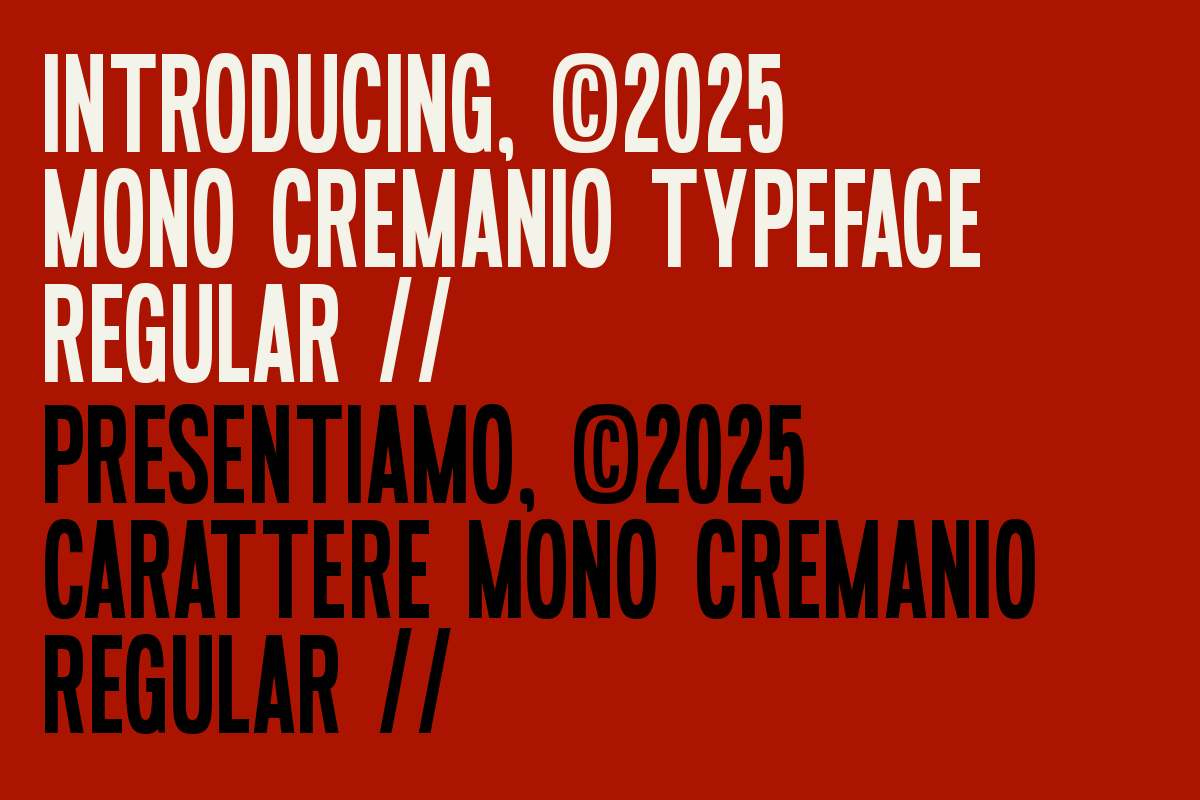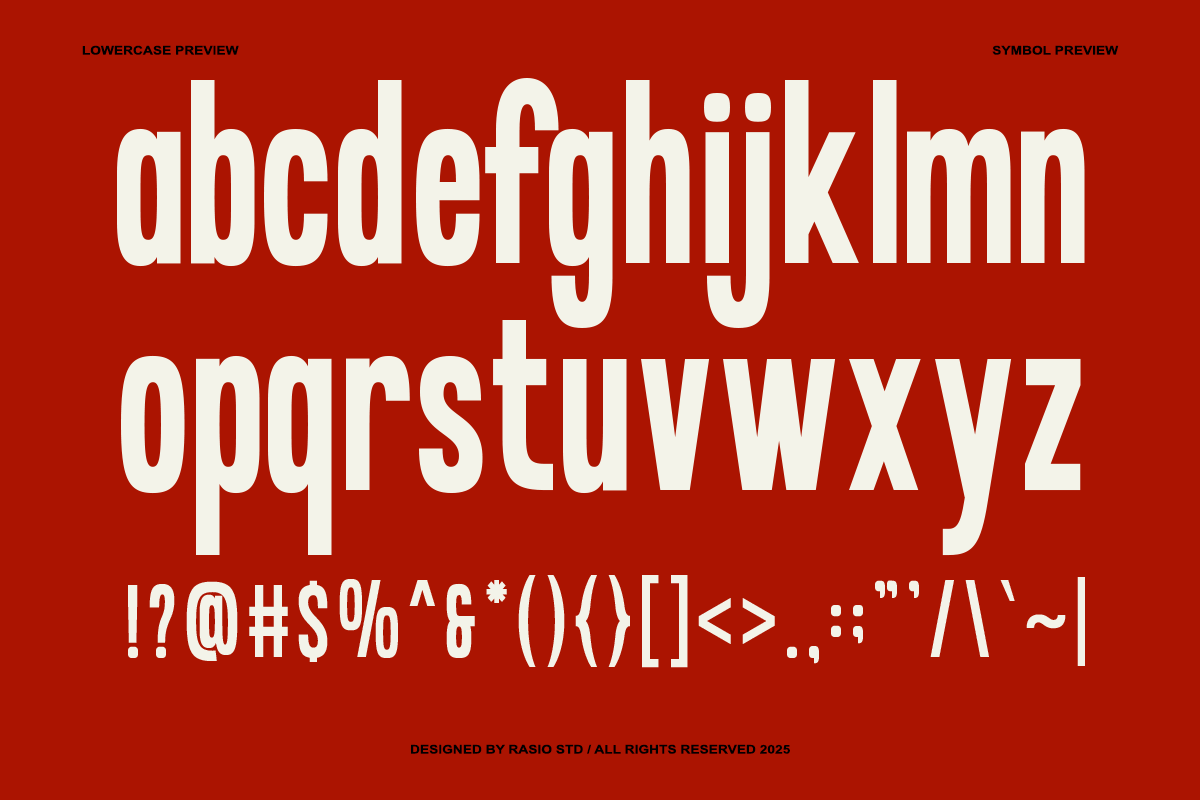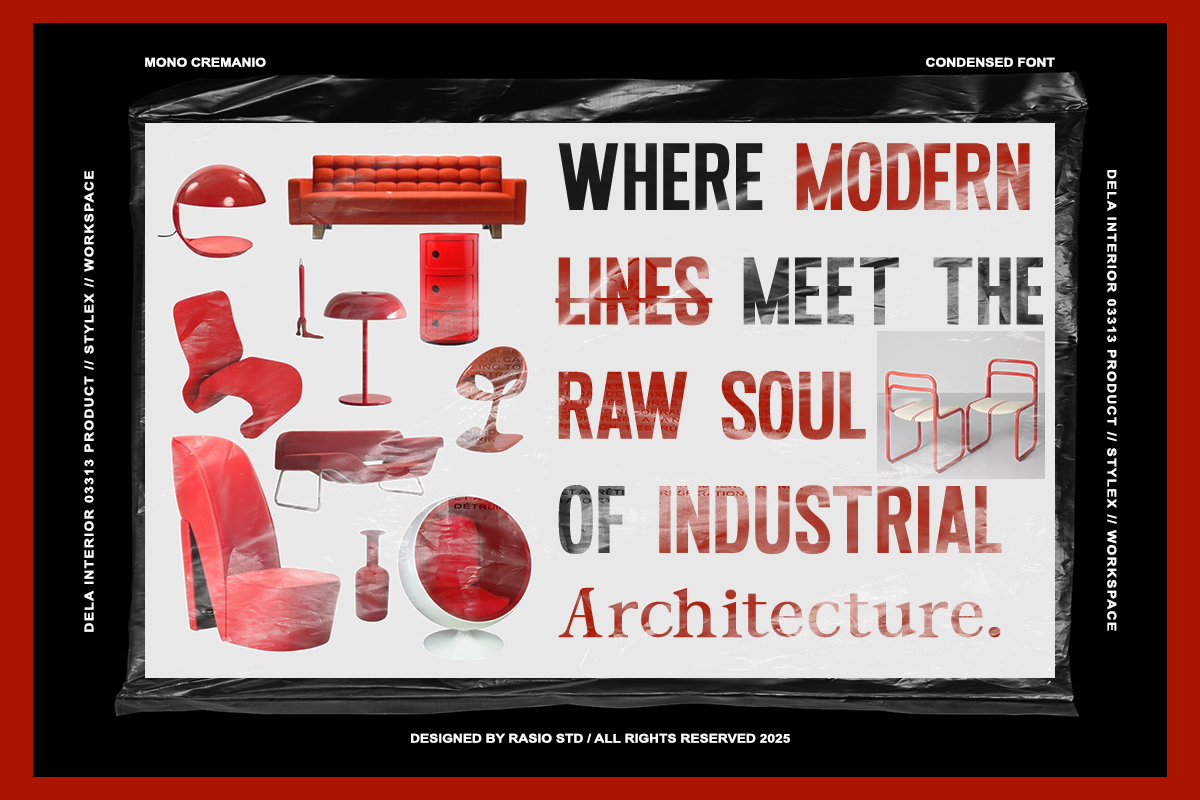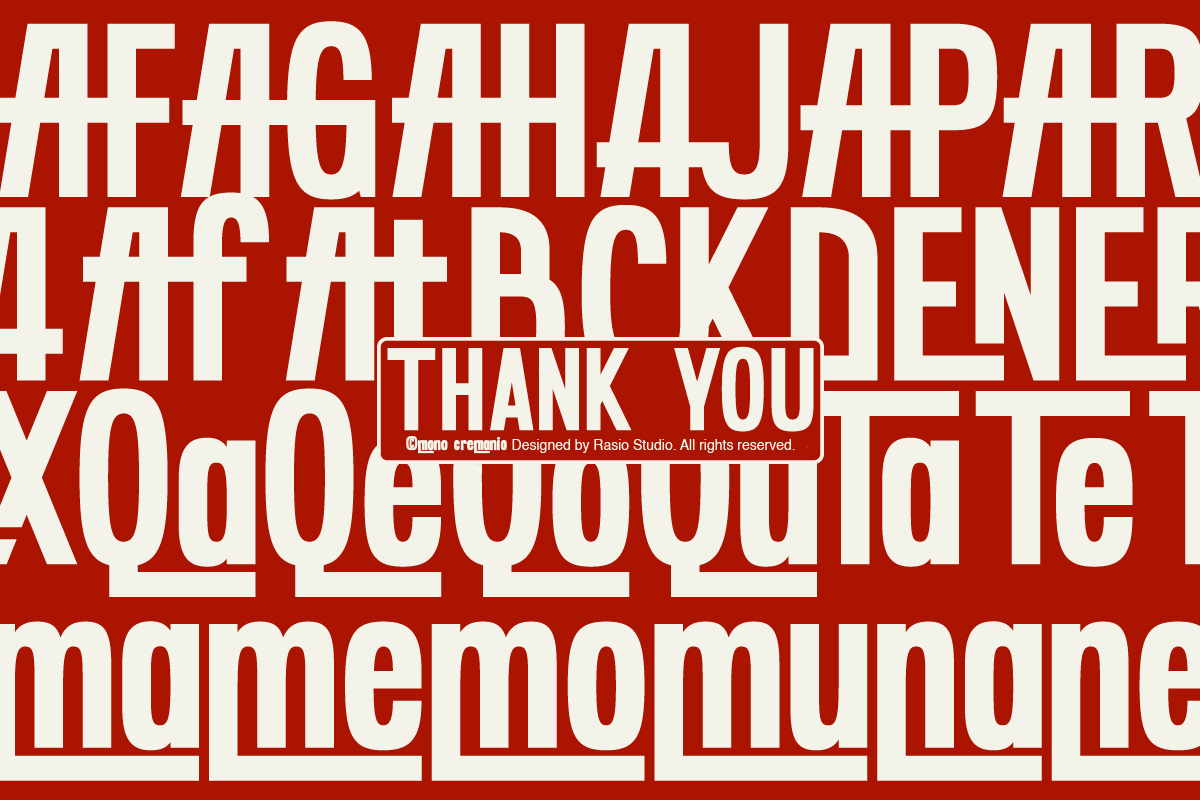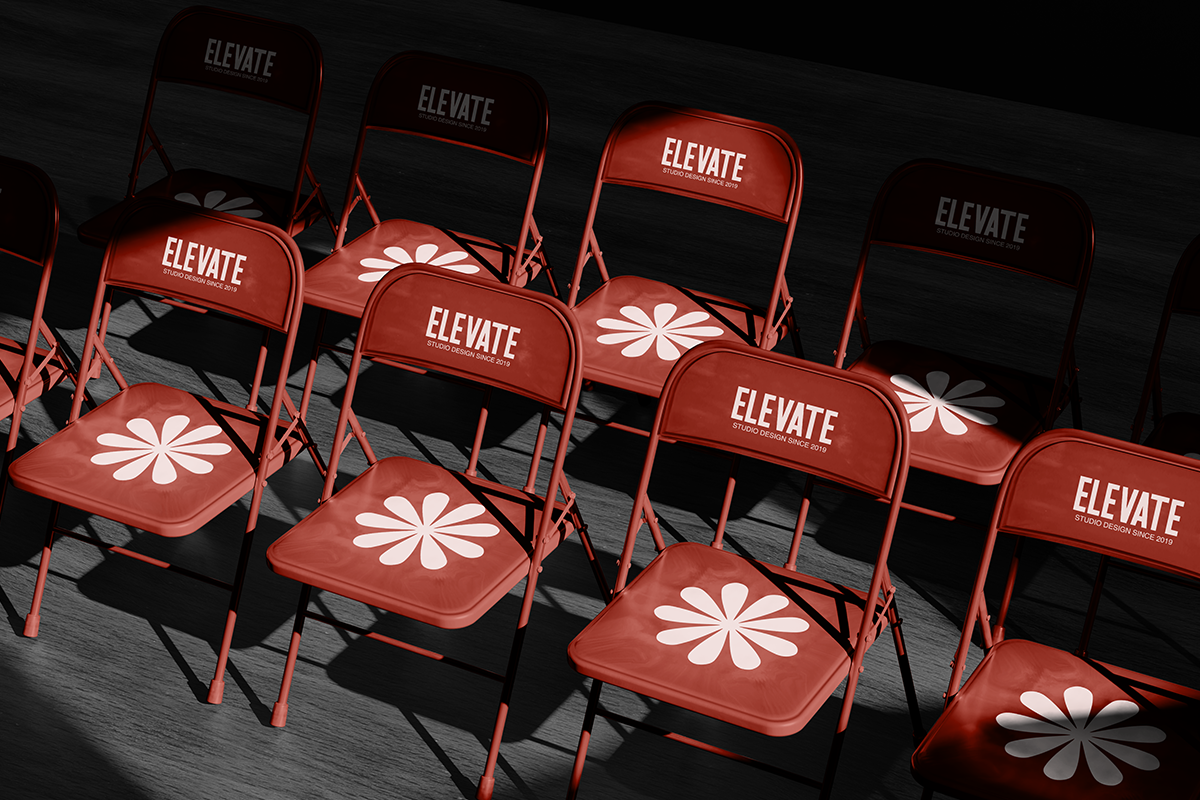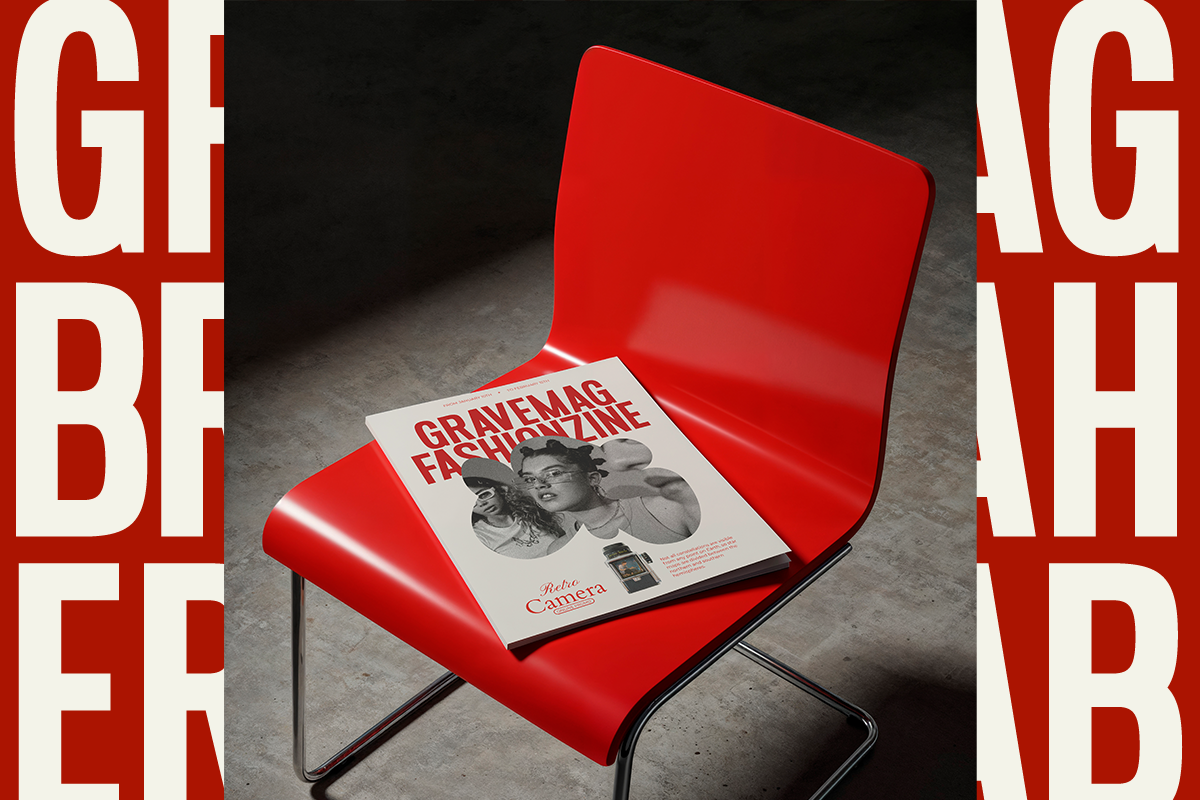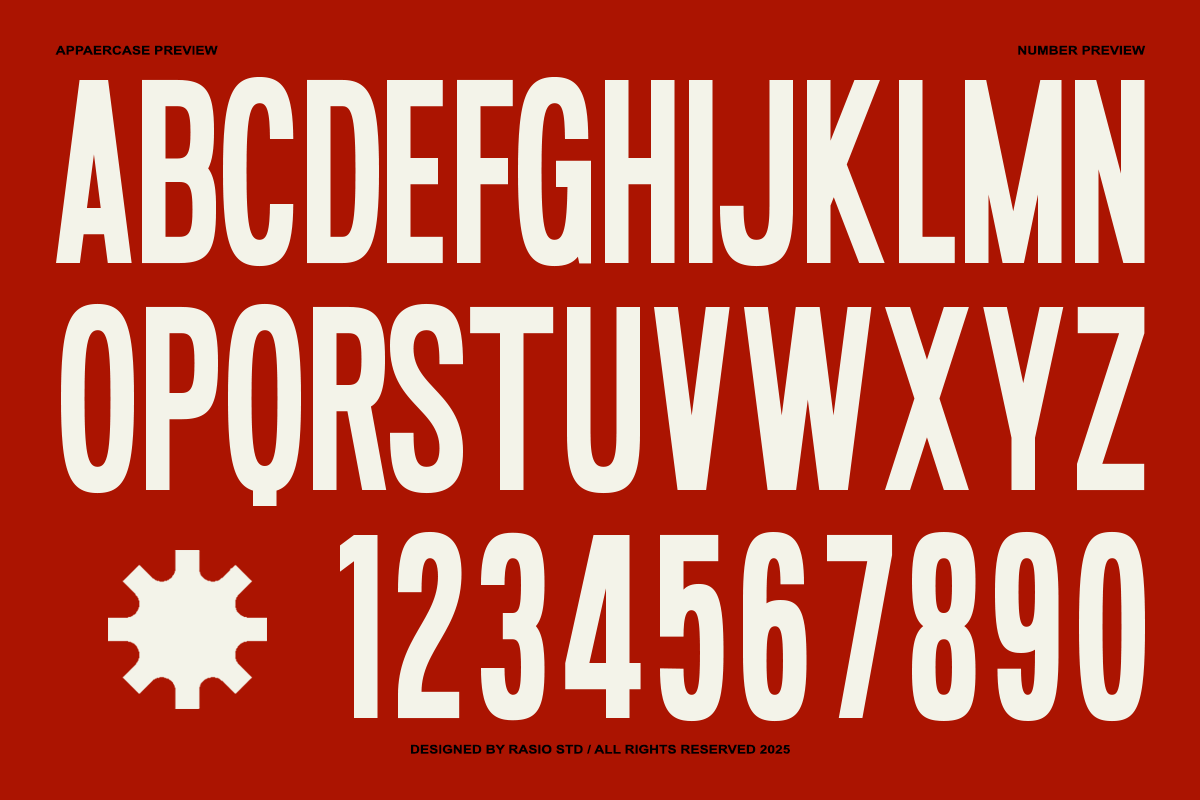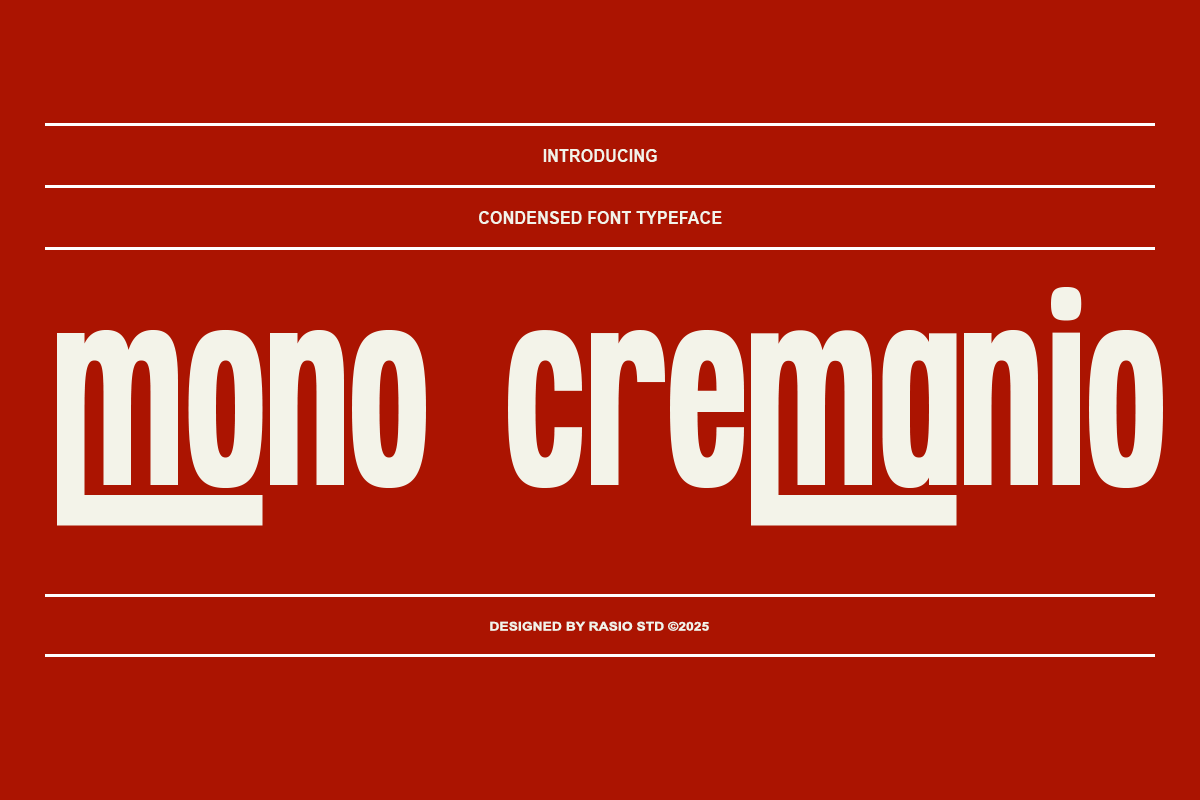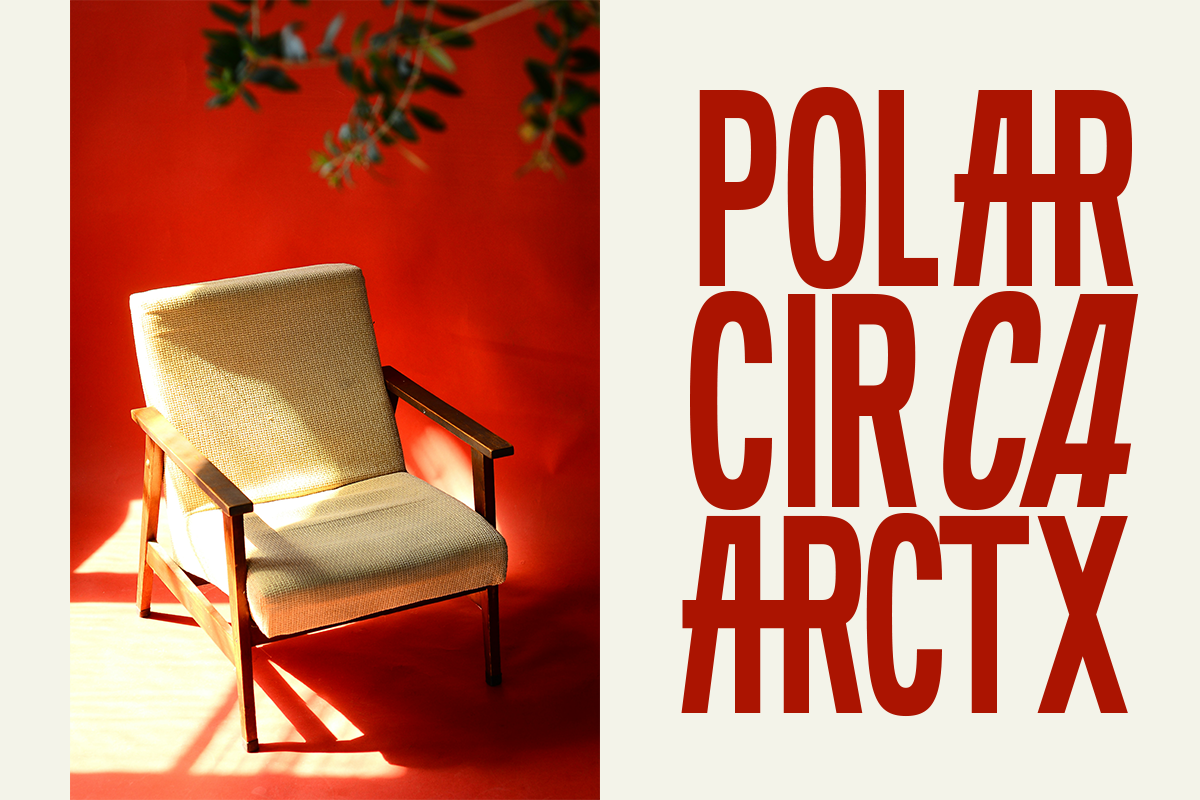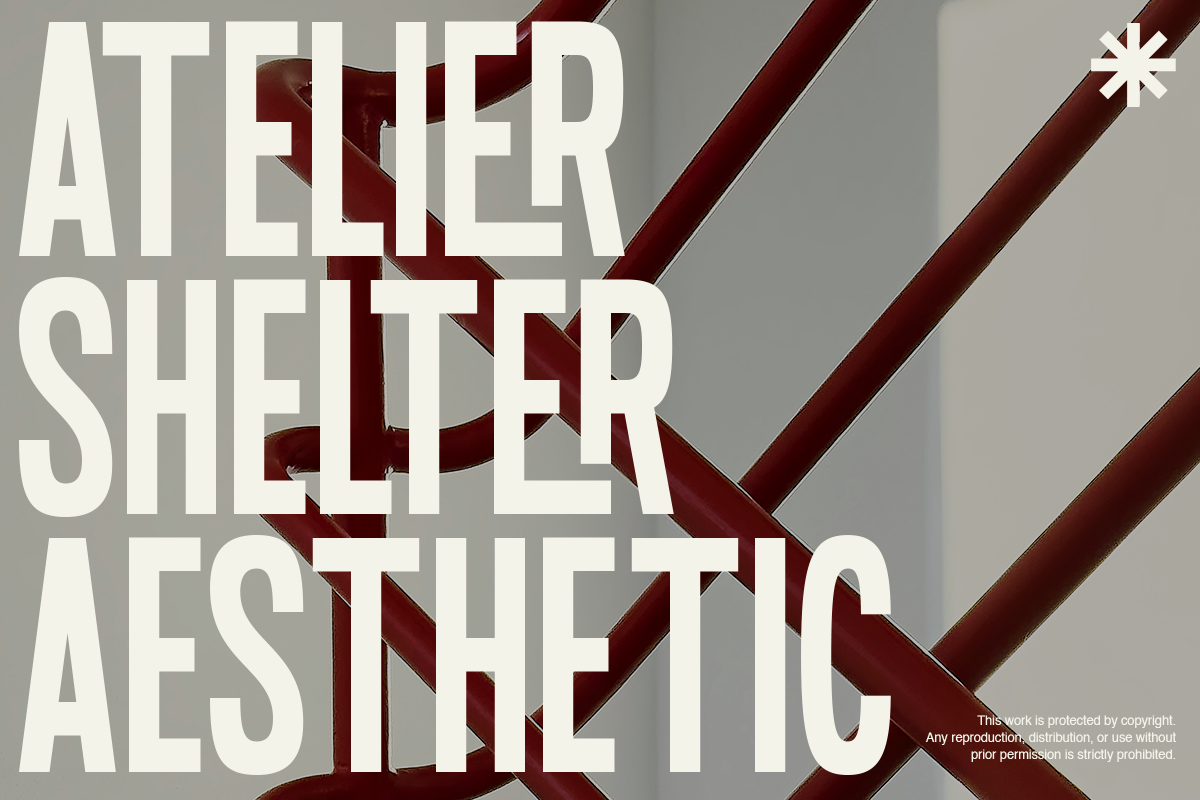
Mono Cremanio Modern Bold Font
Mono Cremanio is a modern bold condensed sans serif typeface designed for strong visual impact and confident typography. Featuring tall, narrow letterforms with uniform stroke weight and clean geometric construction, this font delivers a powerful headline presence while maintaining excellent legibility. Its structured vertical proportions and contemporary styling make it ideal for branding, editorial layouts, posters, packaging, and digital campaigns.
Mono Cremanio is highly relevant for modern branding projects that require strong, space-efficient typography. Its condensed structure makes it ideal for posters, album covers, packaging, sports branding, advertising campaigns, magazine headlines, and social media graphics where bold impact is essential.
- Modern condensed construction with tall, space-efficient proportions
- Strong vertical emphasis for a confident and commanding presence
- Uniform bold stroke weight for clean, impactful consistency
- Sharp yet refined geometric forms for a contemporary aesthetic
- Tight structure optimized for powerful headlines and compact layouts
- Brand identity systems that require strong, confident visual presence
- Poster designs, album covers, and bold promotional materials
- Sports branding and energetic campaign graphics
- Packaging design that needs compact yet powerful typography
- Social media headlines and digital ads demanding maximum impact
Mono Cremanio built for bold, high-impact design